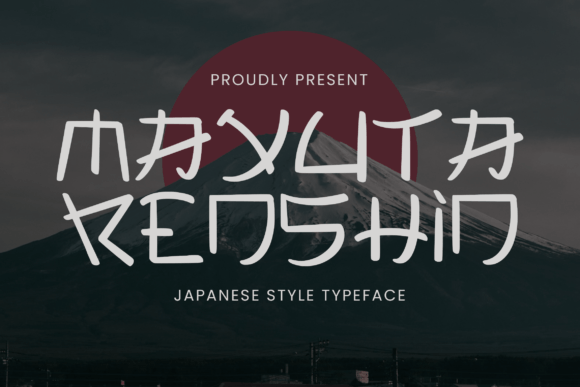
Dive into the mesmerizing world of Mayuta Renshin, a Japanese-style typography that will ignite your creativity and captivate your audience.
As an exquisite display font, Mayuta Renshin is meticulously designed to evoke the elegance and sophistication of traditional Japanese calligraphy. Its graceful strokes dance across the page, enchanting the eyes with a delicate balance of beauty and functionality.
Whether you're crafting captivating logos, creating eye-catching social media posts, or designing alluring product packaging, Mayuta Renshin empowers you to make an unforgettable impression. Its versatility extends to branding projects, product designs, labels, photography, and more, adding a touch of Japanese flair to your creations.
Imagine your designs adorned with the enchanting characters of Mayuta Renshin, instantly captivating attention and leaving a lasting impact. Its unique fusion of Eastern aesthetics and modern sensibilities elevates your projects, setting them apart in a crowded digital landscape.
So, unleash your creativity and embrace the captivating allure of Mayuta Renshin. Let its strokes weave a tapestry of visual delight, capturing hearts and minds with every design.